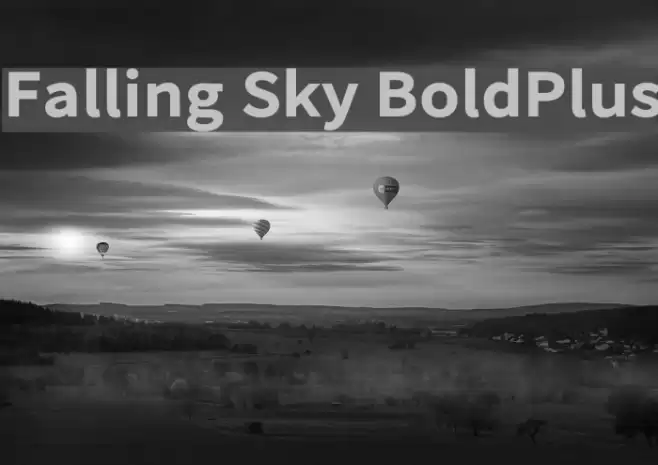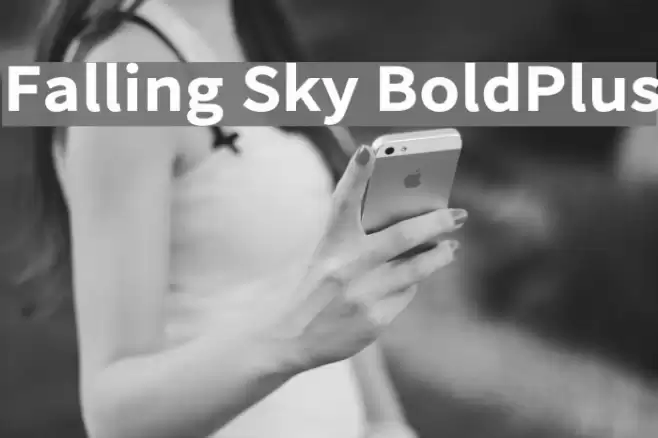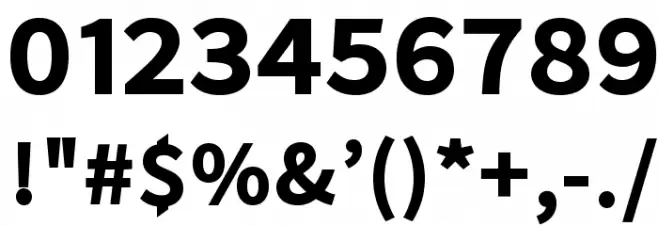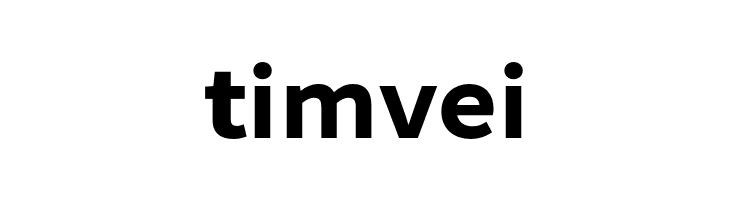
Falling Sky BoldPlus Font
Falling Sky BoldPlus Description
This font features a bold and modern sans-serif style with clean, geometric lines and a strong presence. The uppercase and lowercase letters are well-balanced, providing a harmonious look. The numbers and special characters maintain the same boldness, ensuring consistency across all text elements. The font's design is straightforward yet impactful, making it suitable for a variety of applications where clarity and emphasis are needed. Its bold weight and normal width contribute to its legibility, even at smaller sizes. The character spacing is normal, allowing for easy readability without appearing cramped or overly spaced.
A bold, modern sans-serif font with clean lines and strong presence from Uncategorized fonts.
- Proposed Projects: Ideal for headlines, posters, branding, and advertising where boldness and clarity are essential.